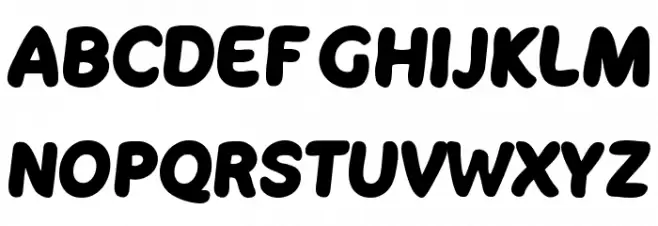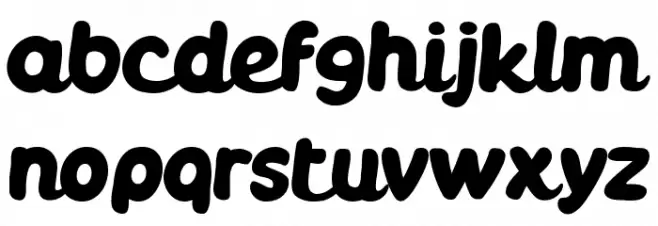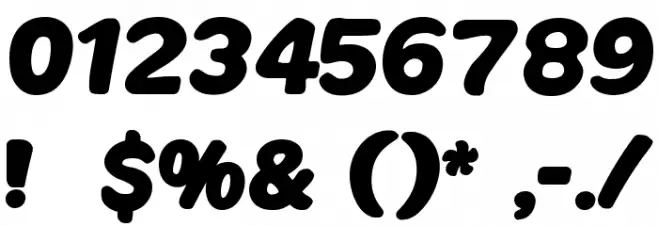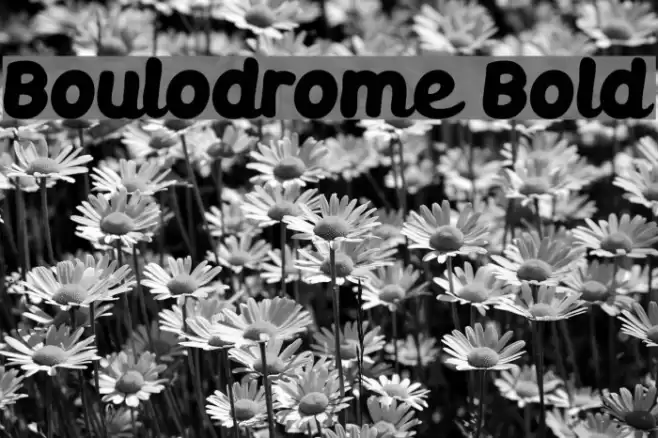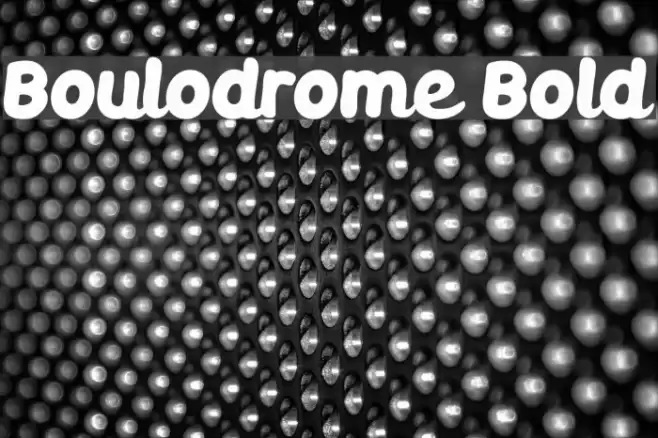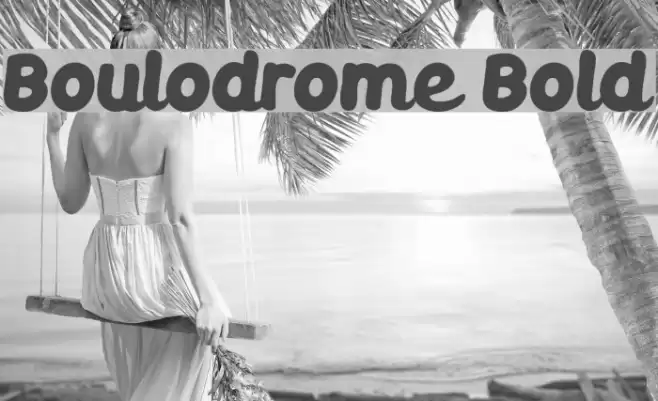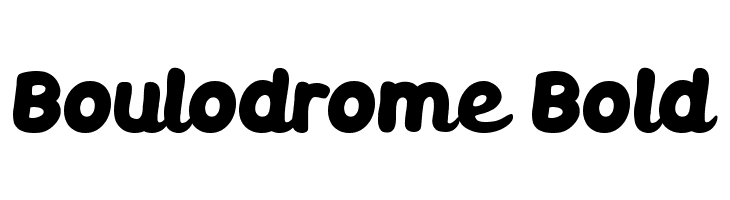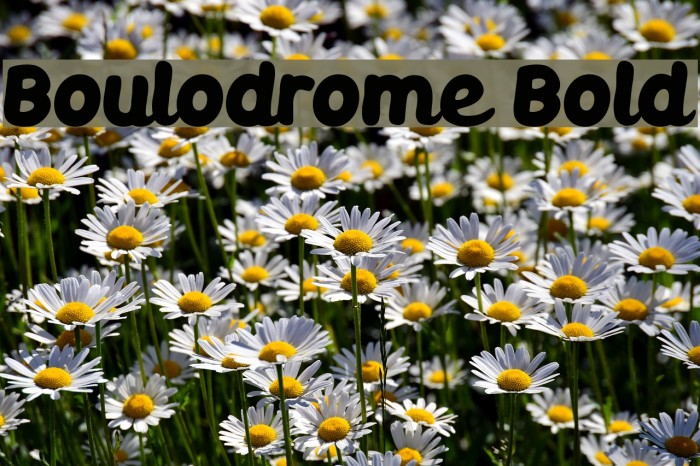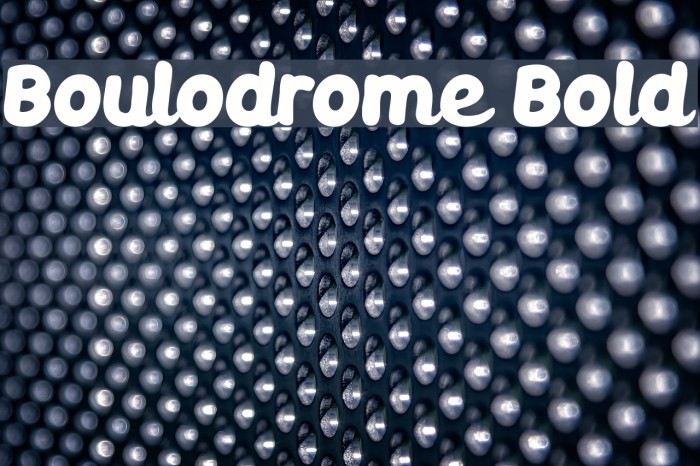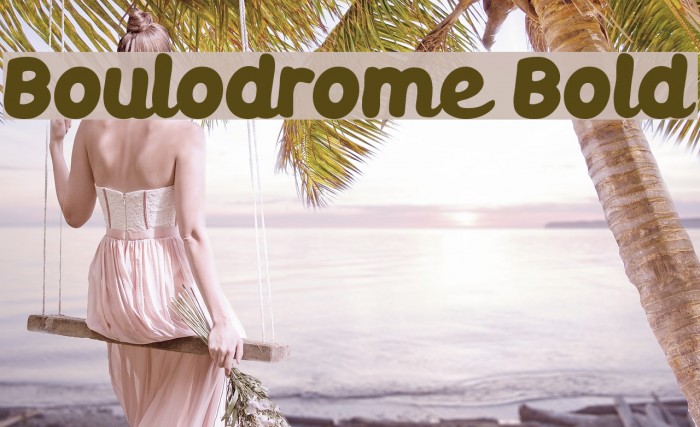
Boulodrome Bold
This font features a bold, rounded style with a playful and friendly appearance. The characters are thick and have a smooth, flowing design that creates a sense of warmth and approachability. The uppercase and lowercase letters maintain a consistent weight, contributing to a cohesive look. The numbers and special characters follow the same design principles, ensuring uniformity across all glyphs. The rounded edges and lack of sharp angles give it a soft, inviting feel, making it suitable for projects that require a casual and informal tone.
A bold, rounded font with a playful and friendly style.
- Proposed Projects: Ideal for children's books, playful branding, casual invitations, and friendly advertising campaigns.
- Overall Style: Playful
- Use Case: Headlines, Logos, Informal Text